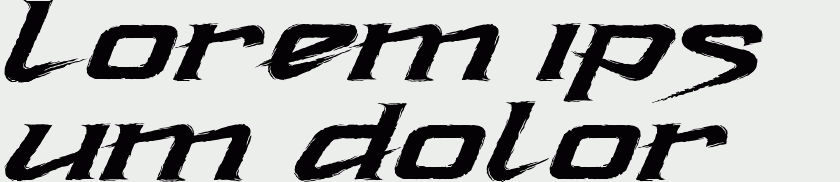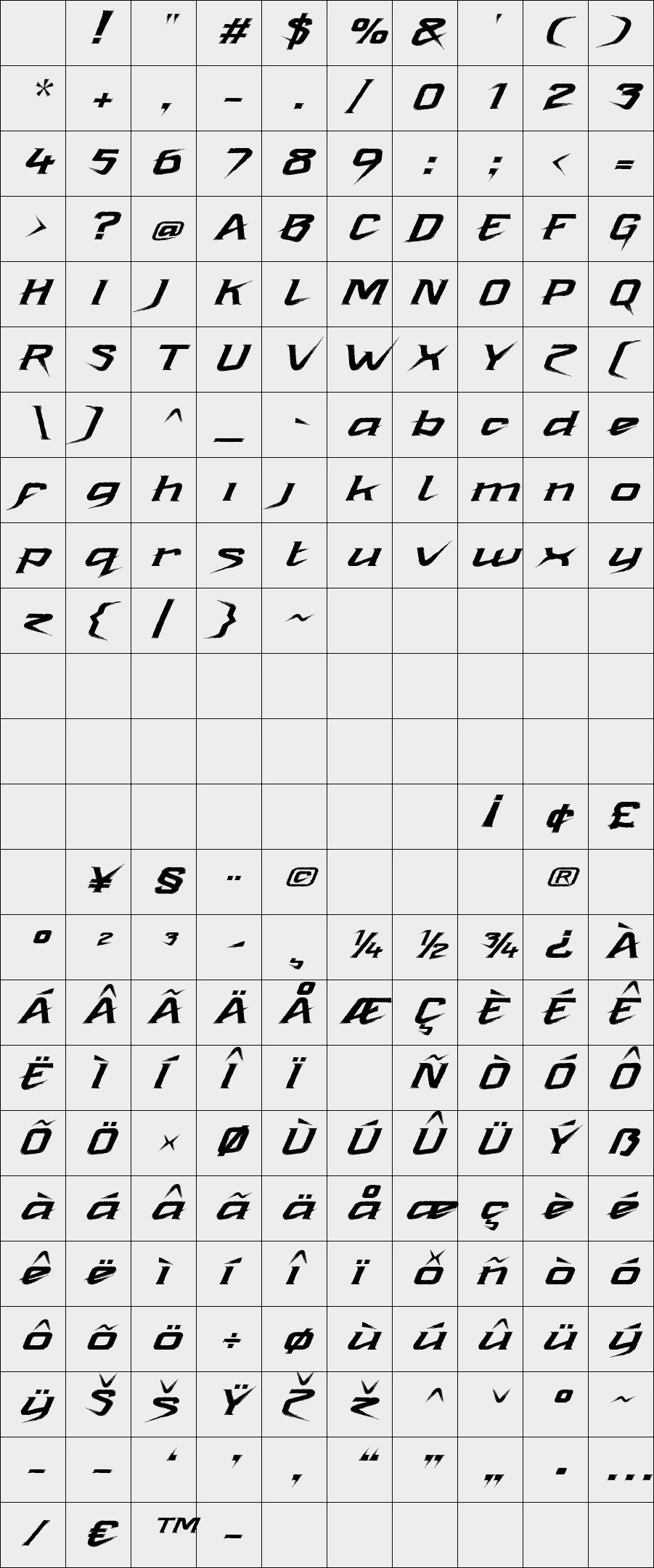
Street Grime
Street Grime is a urban styled font. It is designed to give a unique and fresh underground look.
It works great in lowercase, uppercase and titlecase.
Designer: Chris Swinn